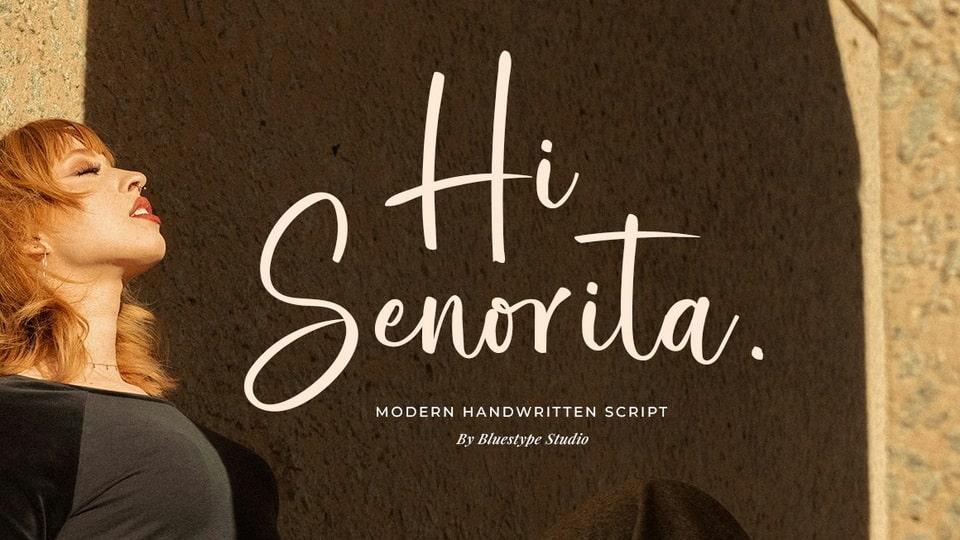
Download Hi Senorita font, a captivating handwritten typeface that blends elegance and modernity in every stroke. Perfect for adding a personal and sophisticated touch to your designs.